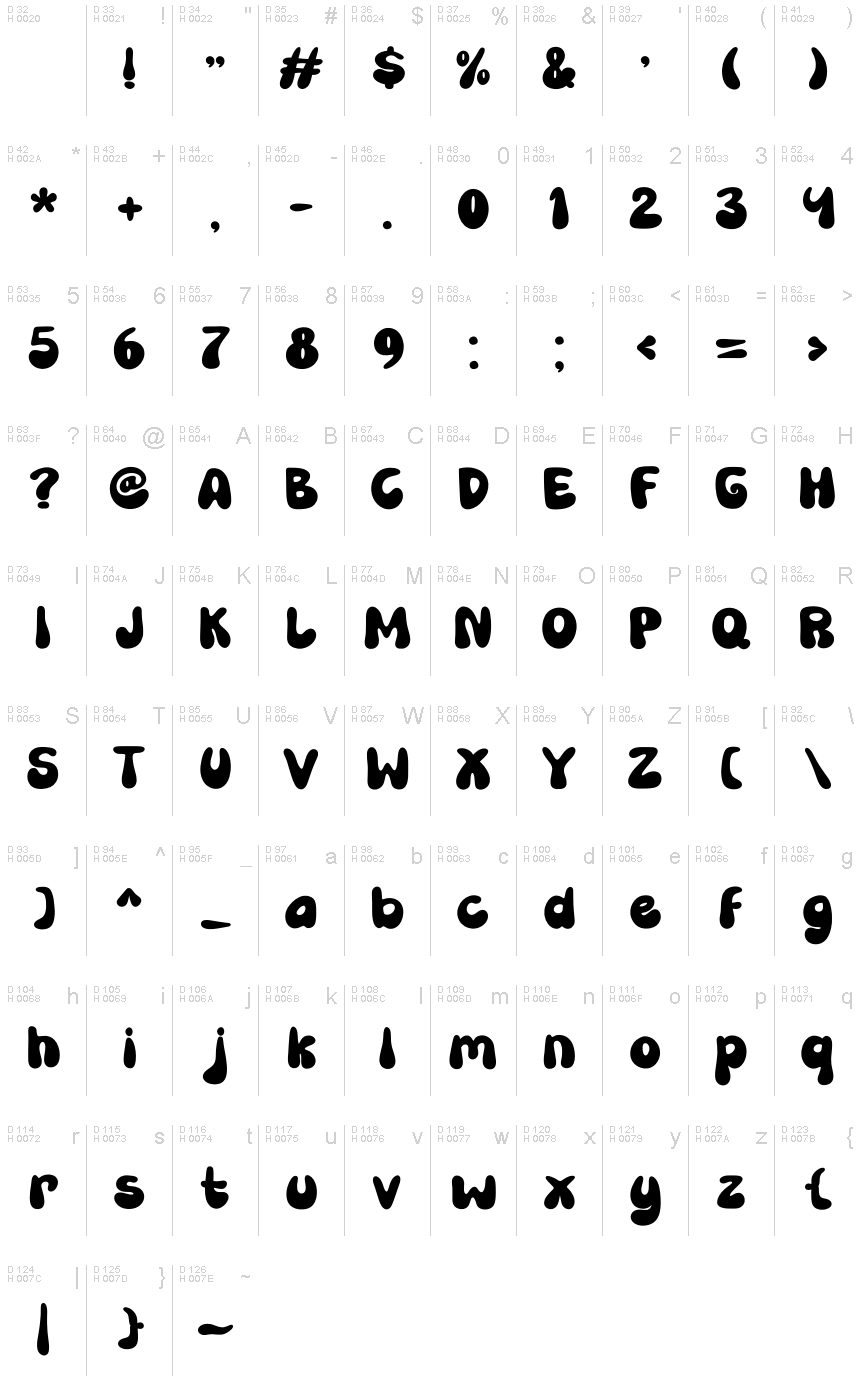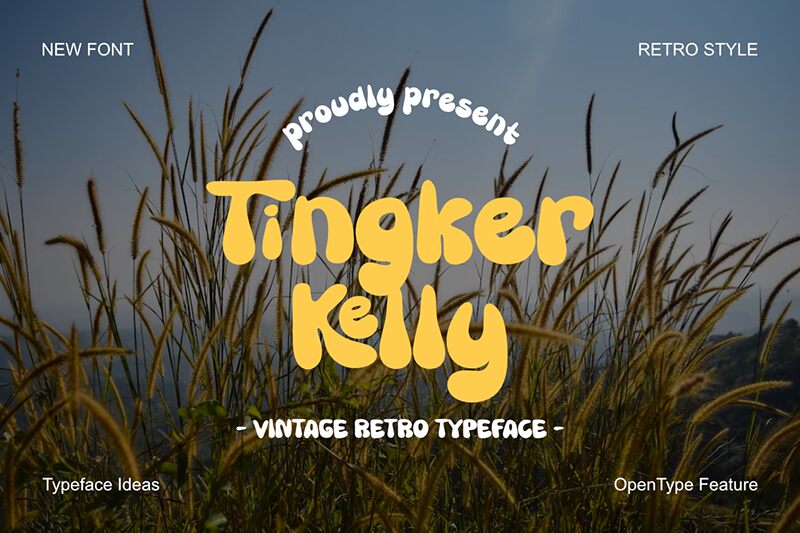
Tingker Kelly
Tingker Kelly font is a bold display typeface created by Muhammad Yafinuha of Masyafi Studio. Designed with a cartoon, retro style, this modern font has a casual and relaxed character for presenting friendly messages. The beauty of the letters here comes from their beautiful shapes and form arrangements which will catch the eye from the first instance.